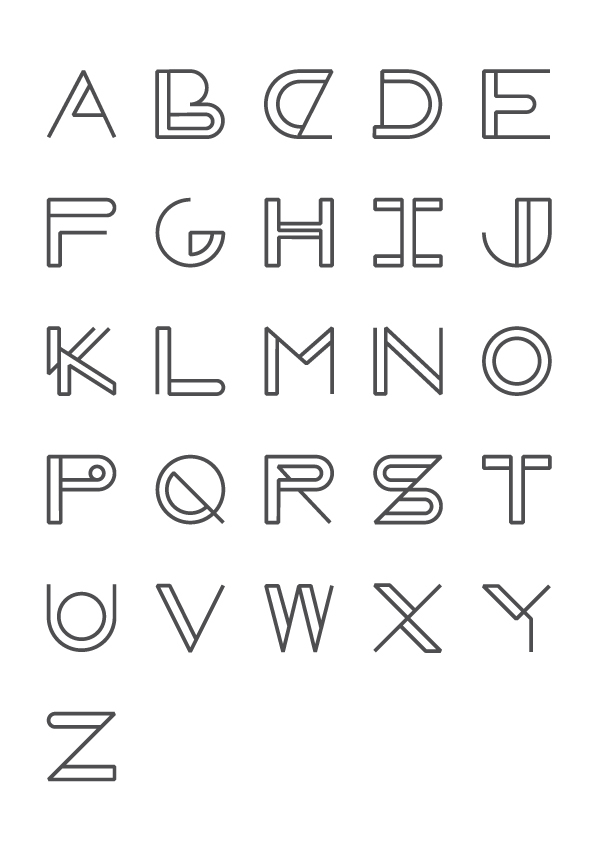
Pop Chang
Based in Shanghai, Pop Chang is an original and creative designer, illustrator and photographer. His typographic work includes Paperclip (2011), the funny Bike Chain Font (2008), and a pair of pixel fonts called Pixel Faces Pattern (2008). |